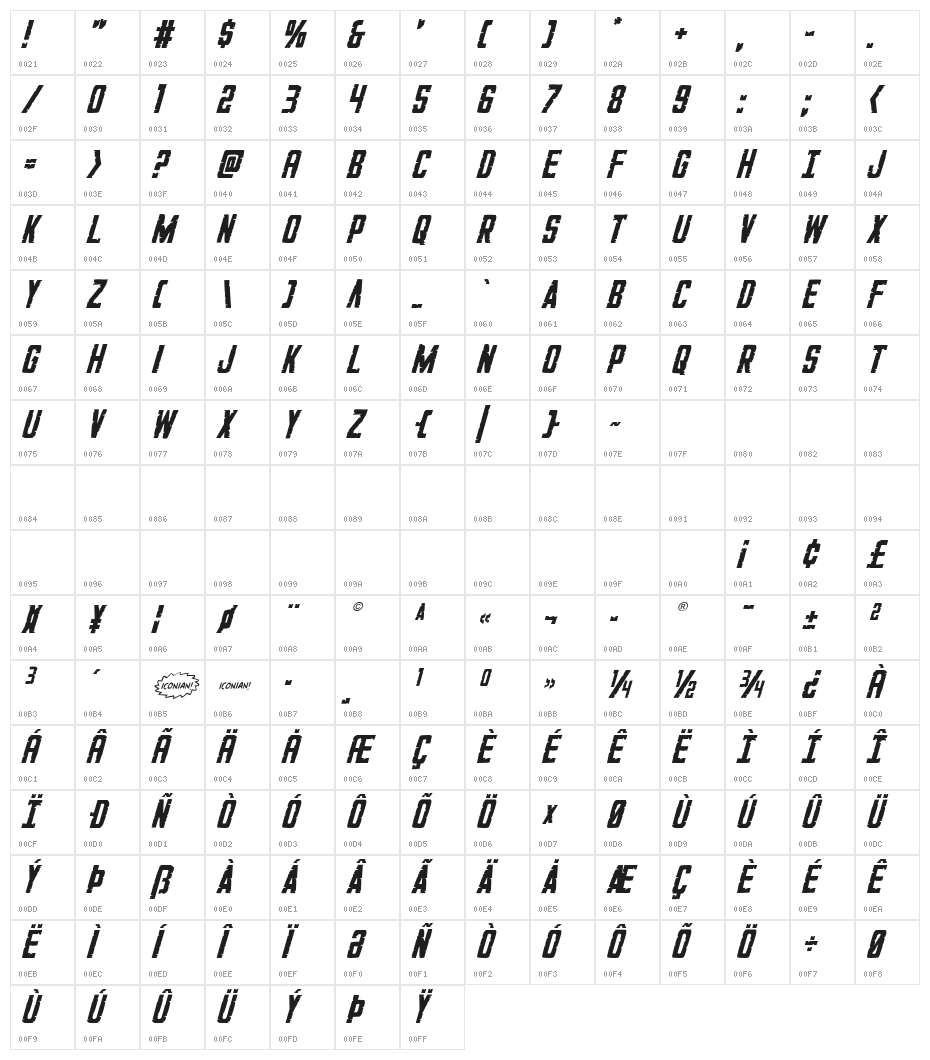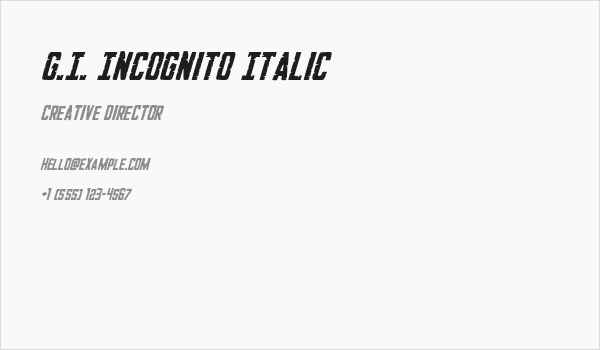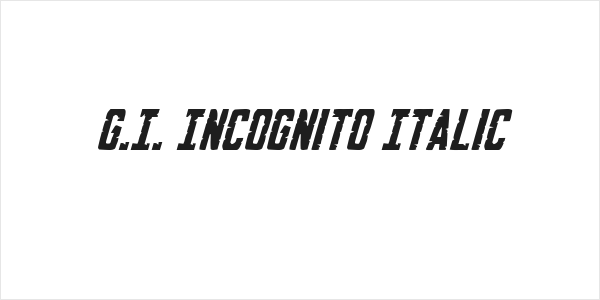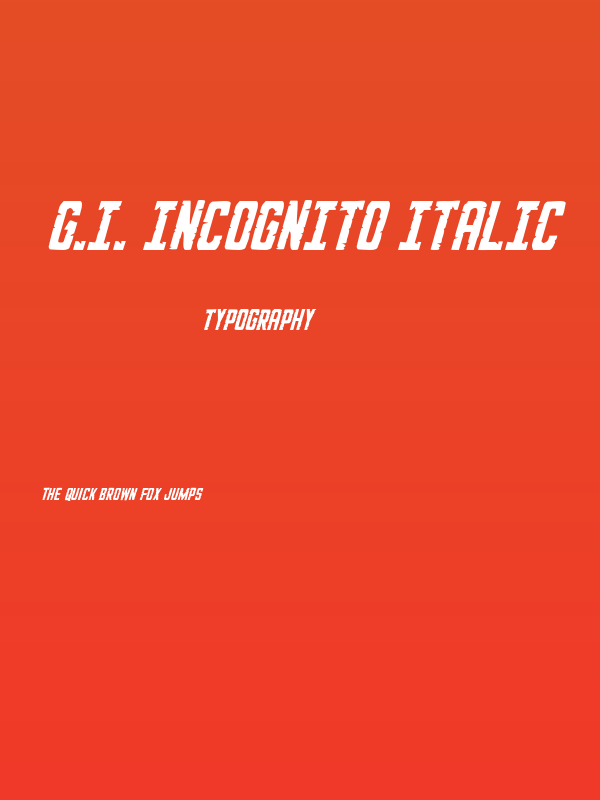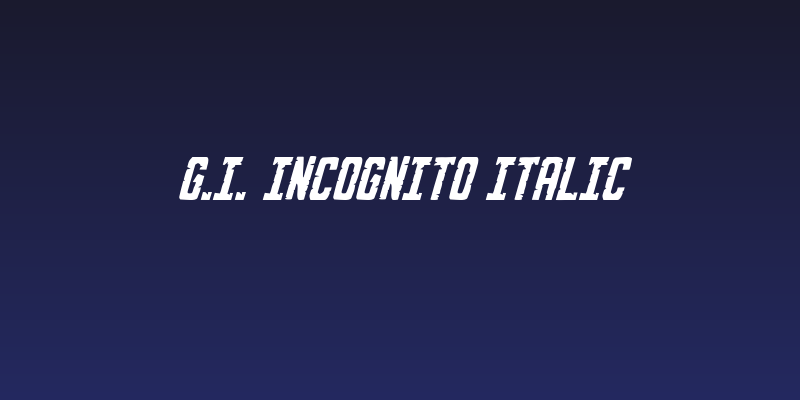
G.I. Incognito Italic Font
G.I. Incognito Italic Description
This font features a bold and dynamic style with a distinct italic slant, giving it a sense of motion and urgency. The characters are designed with sharp, angular edges and a slightly distressed texture, adding a rugged and edgy feel. The uppercase and lowercase letters maintain a consistent height, contributing to a uniform appearance. The numerals and special characters follow the same stylistic cues, ensuring cohesion across all elements. This font's unique design makes it stand out, ideal for projects that require a strong visual impact.
| Overall Style | Modern, Edgy |
| Proposed Projects | Ideal for sports branding, action movie posters, dynamic advertisements, and edgy graphic designs. |